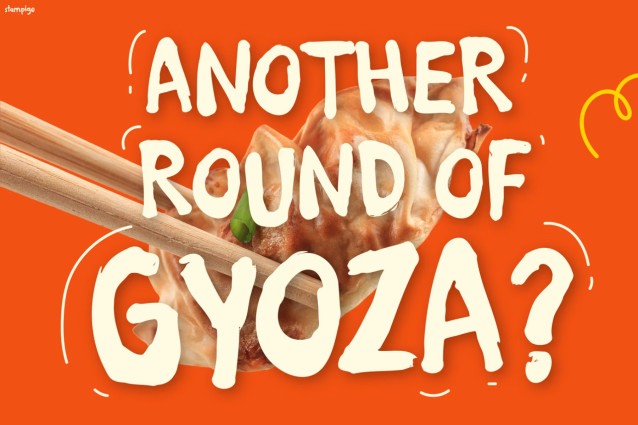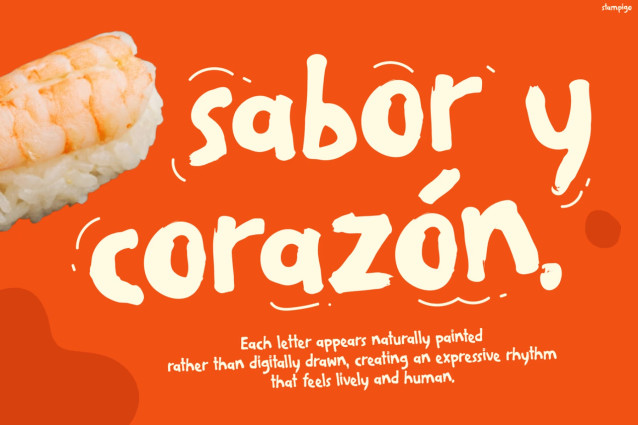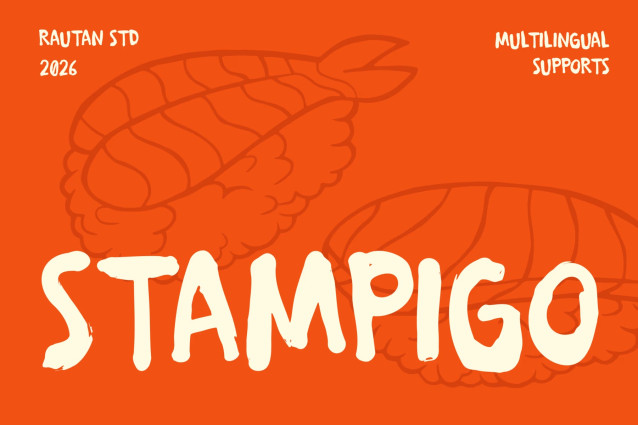
Stampigo Font
Japanese Font Stampigo – Authentic Japanese Brush Display Font
Japanese Font Stampigo brings the spirit of traditional Japanese brush lettering into a bold and expressive display font. Inspired by authentic sushi branding and handcrafted ink strokes, this font instantly attracts attention. Moreover, its rough brush textures and organic edges create a genuine handmade appearance. As a result, every design feels energetic, memorable, and full of character. At the same time, the letterforms remain highly readable for professional use. Furthermore, Stampigo supports 67 languages, allowing designers to create projects for global audiences with ease.